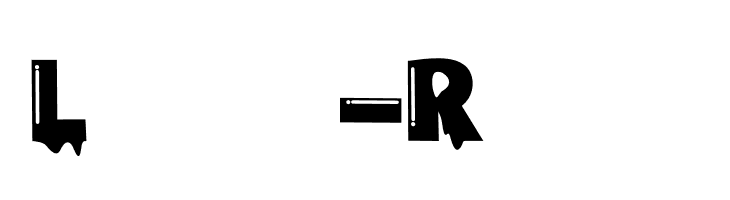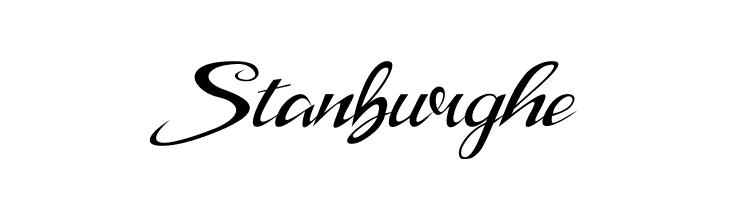
A playful, handwritten font with fluid strokes and a casual, dynamic feel.
A luxurious, flowing cursive font with intricate loops and swashes.
A playful, hand-drawn font with bold, whimsical characters and decorative serifs.
A dynamic script font with flowing, cursive letterforms and elegant swashes.
A modern, italicized sans-serif font with a sleek and professional appearance.
A bold, geometric font with sharp angles and a modern, edgy style.
A bold, distressed font with a grunge, graffiti-inspired style.
A bold, dynamic script font with high contrast and flowing style.
A geometric, modern font with sharp angles and a structured design.
A spooky, hand-drawn font with jagged, elongated characters.
设计师偏爱 Enbellove, Gashina Lattiva Italic, Shine Bloom Line, Jagalana FREE and ÉconoSans Reduced 56 Italic,因为其造型干净、适用范围广—— 从品牌识别到落地页、海报都能胜任。